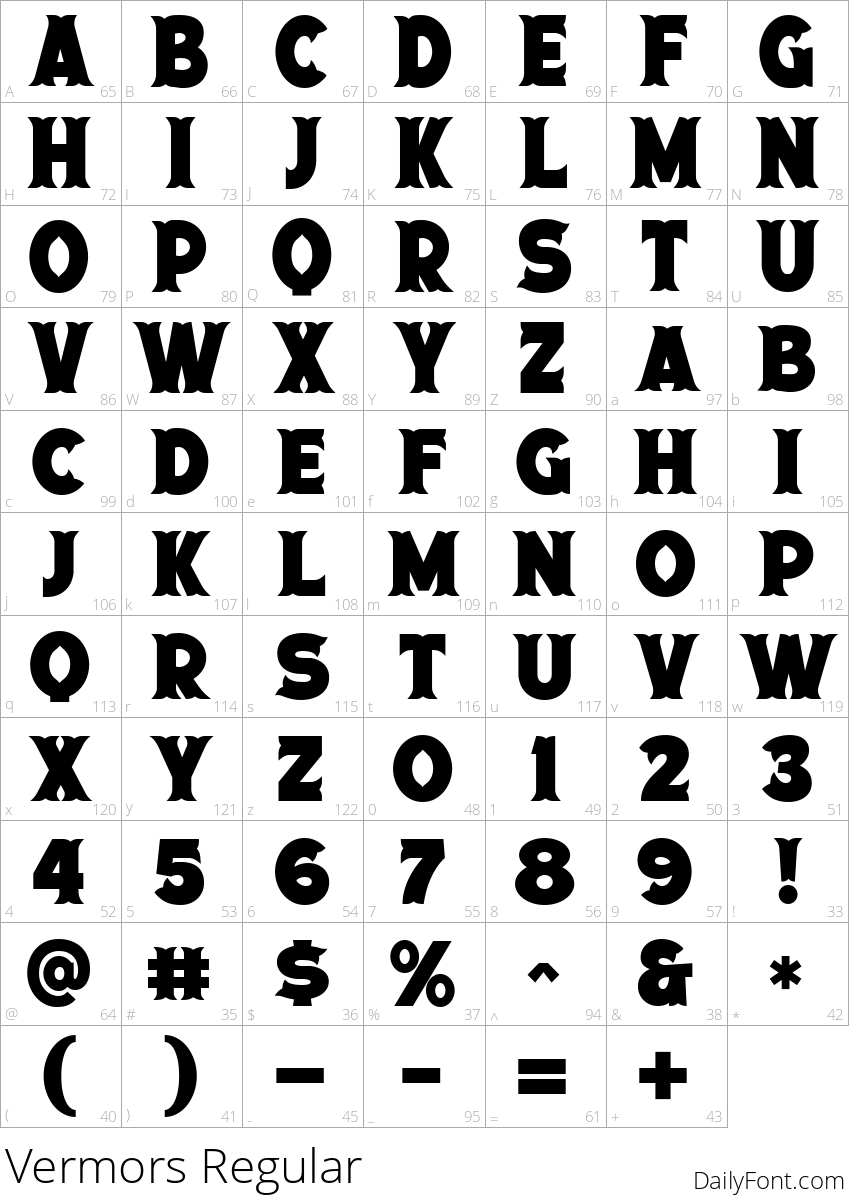
Vermors
Vermors is a Vintage Serif Font inspired by enduring typography from classic eras. This font elevates design with a playful touch, blending timeless serif details with a friendly, contemporary vibe. Meticulously crafted to achieve a high level of aesthetics, Vermors stands out in both bold display and refined editorial settings. Its distinctive letterforms bring character to every project while remaining legible and versatile. Whether used for book covers, posters, packaging, merchandise, or a distinctive logotype, Vermors adds warmth, charm, and professional polish to your typography palette.
Designed for impact, Vermors adapts to branding, editorial, and packaging needs across print and digital media. Use it for bold headlines, elegant titles, or expressive branding marks to create memorable, on-brand visuals. Pair Vermors with clean sans-serif companions to balance its vintage character, or mix it with decorative accents for a retro-inspired look. The font supports a range of weights and spacing that help designers achieve strong hierarchy without sacrificing readability. Ideal for designers seeking a versatile, eye-catching serif that communicates quality and personality in projects from magazines to merchandise.